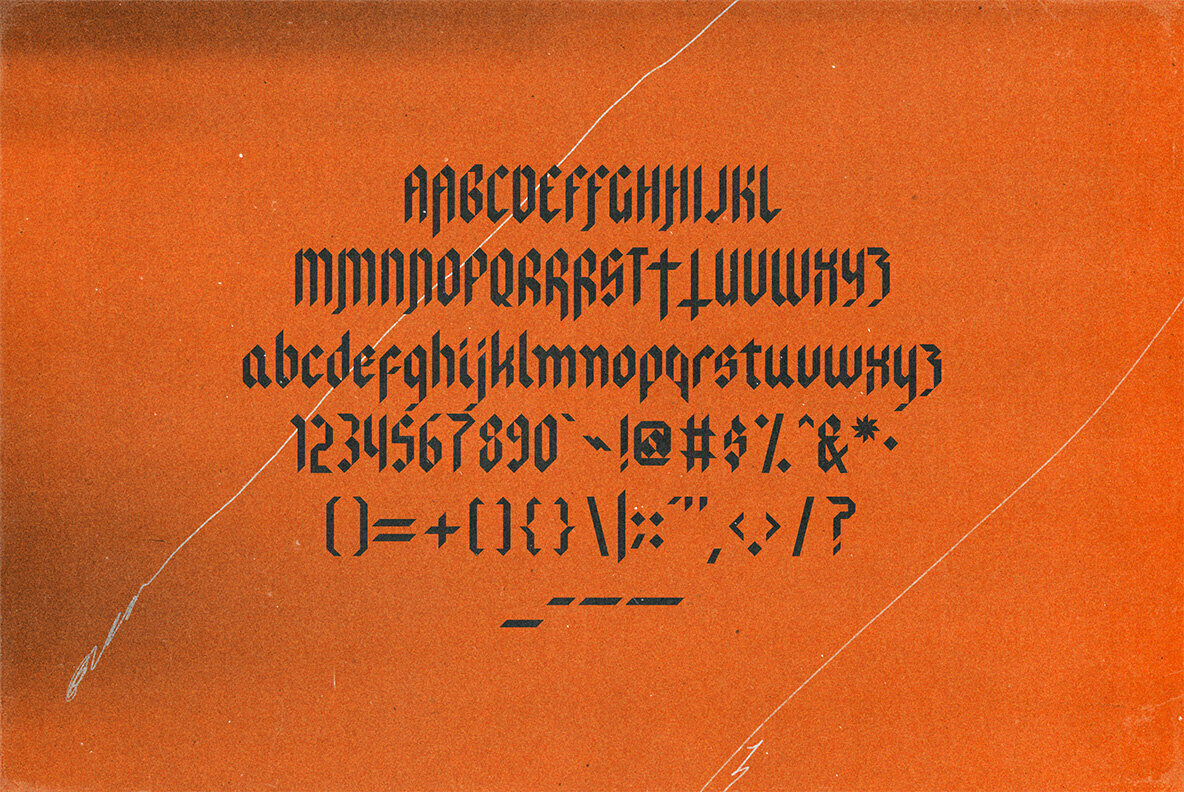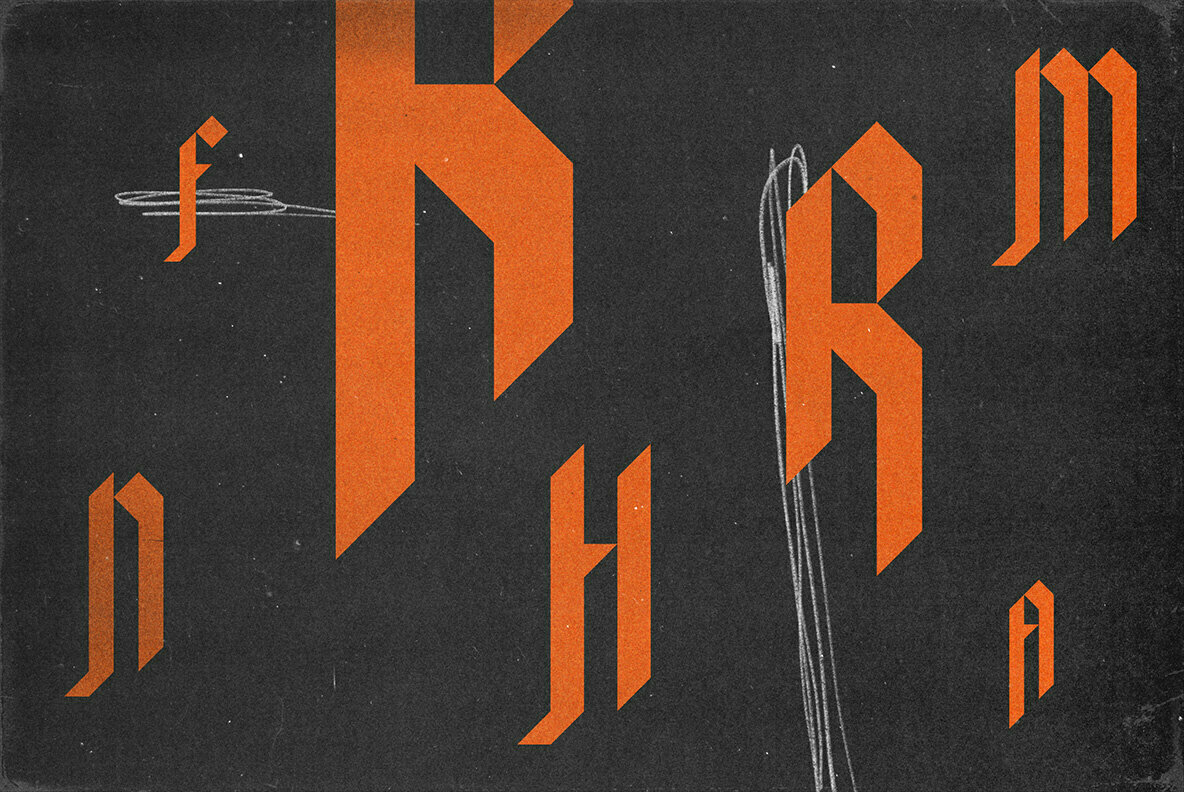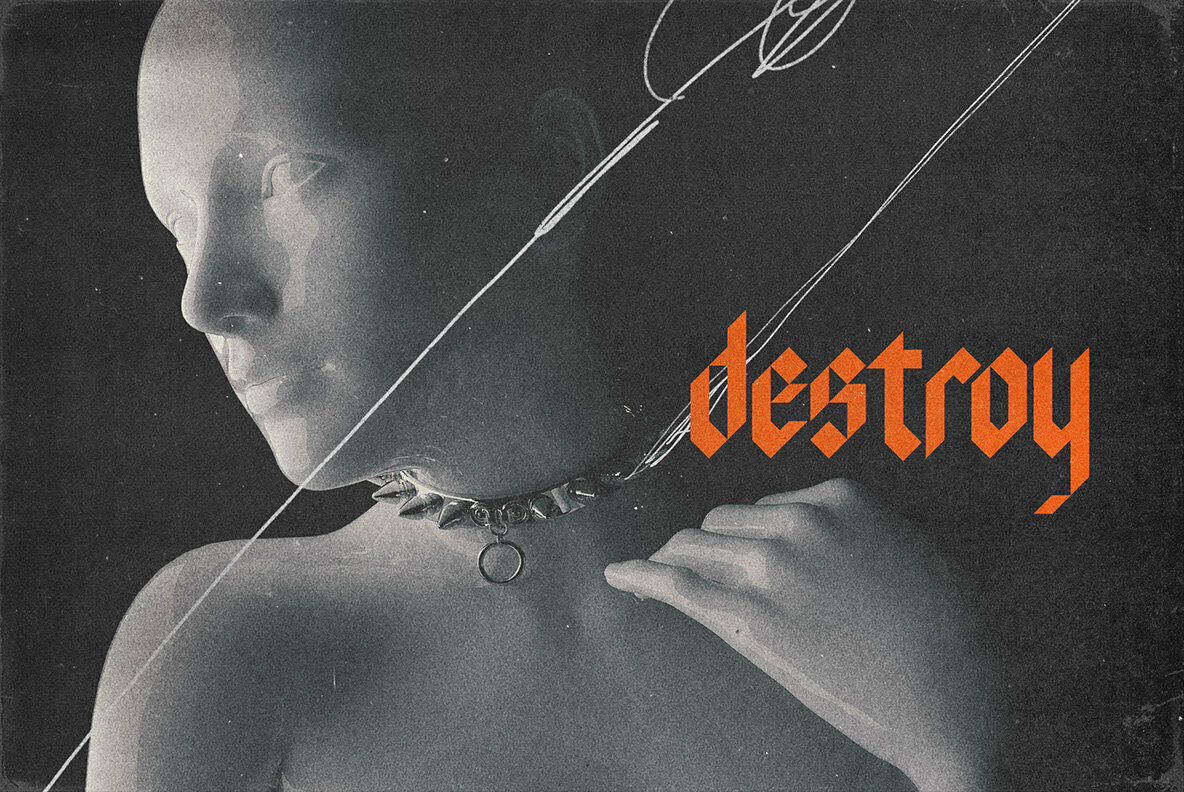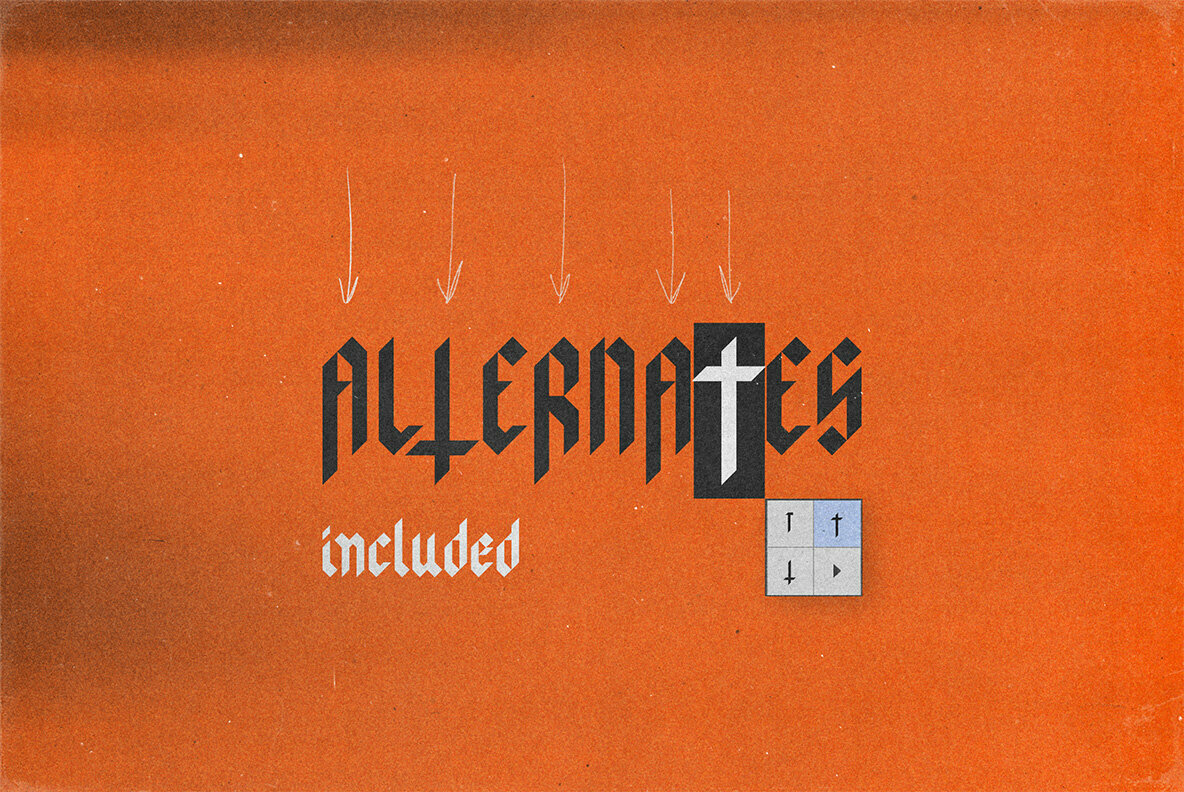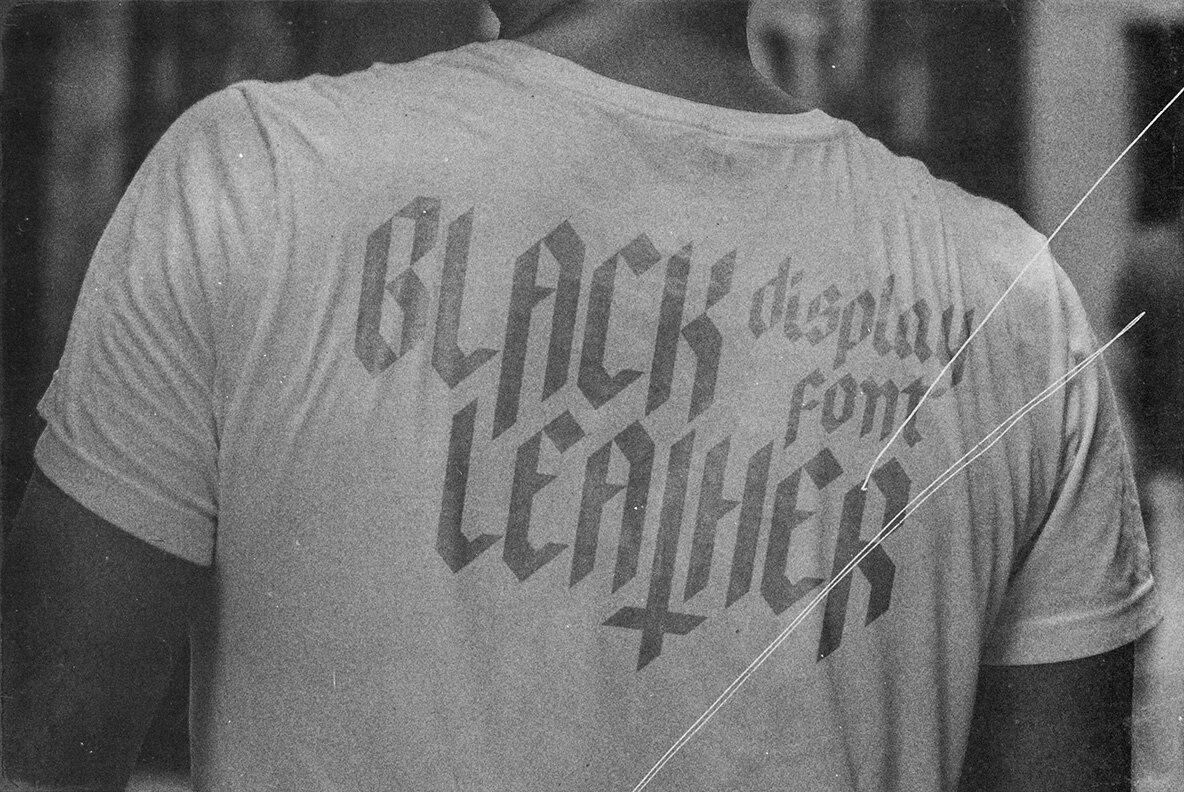
Blackleather Font
Blackleather
Blackleather is a gothic display typeface best for dark and moody vibes. Included are full sets of upper and lowercase letters, numbers, symbols and bonus alternate characters for select letters. Blackleather is designed in a classic blackletter style with sharp, clean 90º/45º lines for the highest quality output possible.